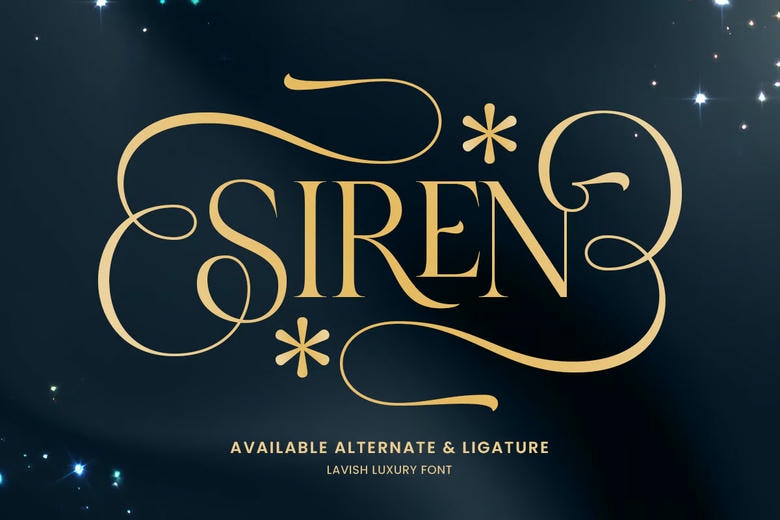
Siren Font
Siren is a sumptuous luxury serif font designed to bring elegance and sophistication to your projects. Its refined and graceful letterforms make it an ideal choice for high-end branding, luxury invitations, and magazine layouts. Siren’s meticulously crafted details and harmonious structure ensure your designs have a sense of opulence and style.
With its versatile nature, Siren is perfect for fashion brands, high-end packaging, and elegant logos. The font’s timeless beauty combines modern aesthetics with classic sophistication, delivering striking visual appeal in a variety of applications.
Let Siren enhance your creative work with a touch of luxury. Choose Siren to add a touch of grandeur and exclusivity to your projects. Its unique features and high-quality construction make it an essential addition to any designer’s toolbox.
Siren Serif Font